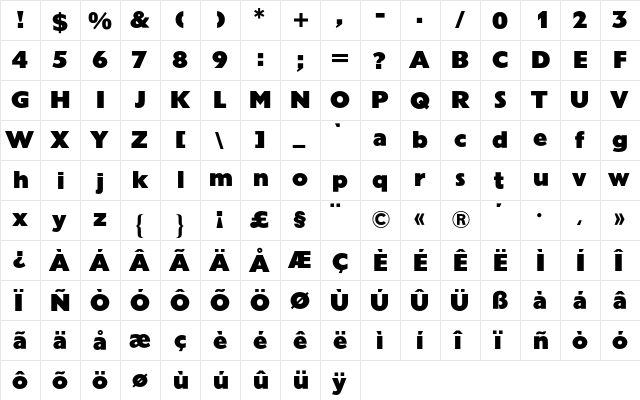
Granby Elephant BQ Regular Font Preview
Granby Elephant BQ Regular
Granby Elephant BQ Regular Font Details
Design Context for Granby Elephant BQ Typeface
Granby Elephant BQ offers clean, dependable letterforms without strong stylistic allegiance, making it a practical choice for designers who need flexibility.